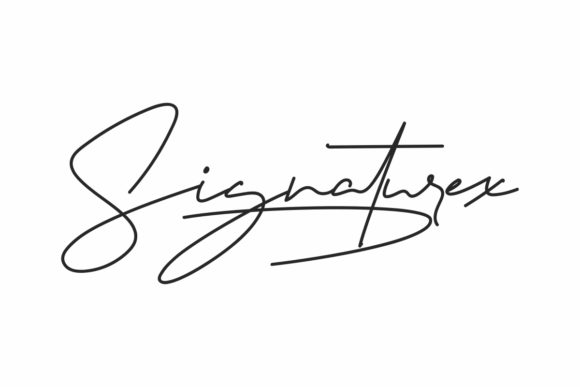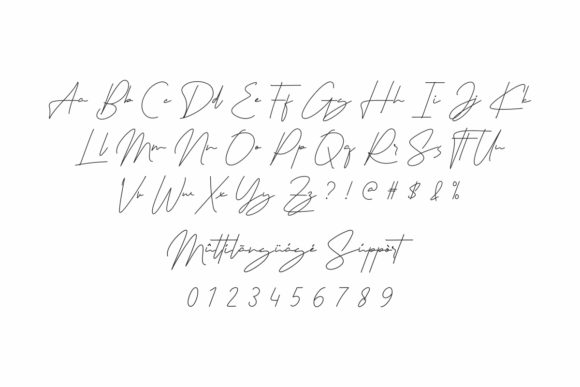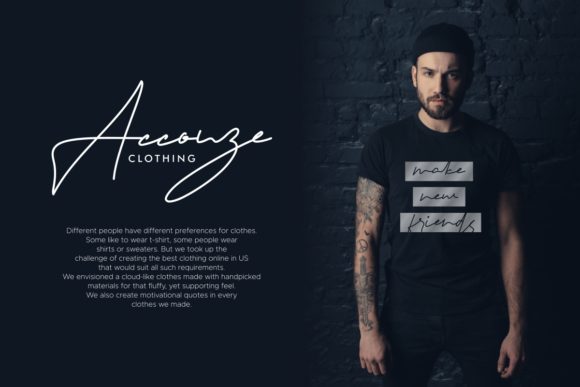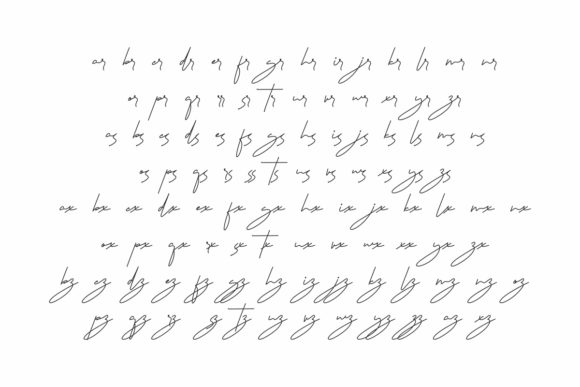
Signaturex Font
About Signaturex Font
Signaturex is a beautiful and stylish handwritten font. It has beautiful and well balanced characters and as a result, it matches a wide pool of designs. Add it to your most creative ideas and notice how it makes them come alive!